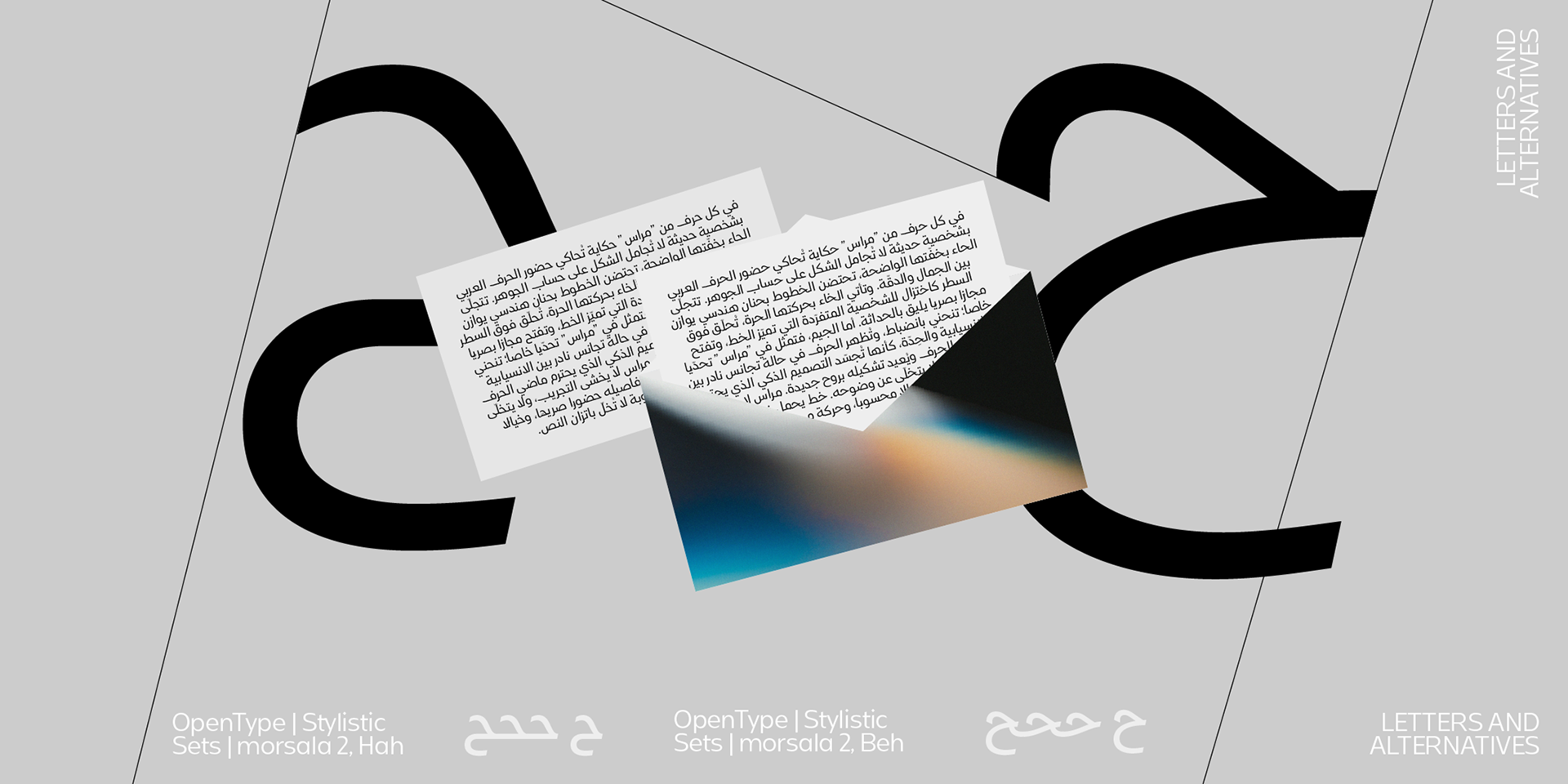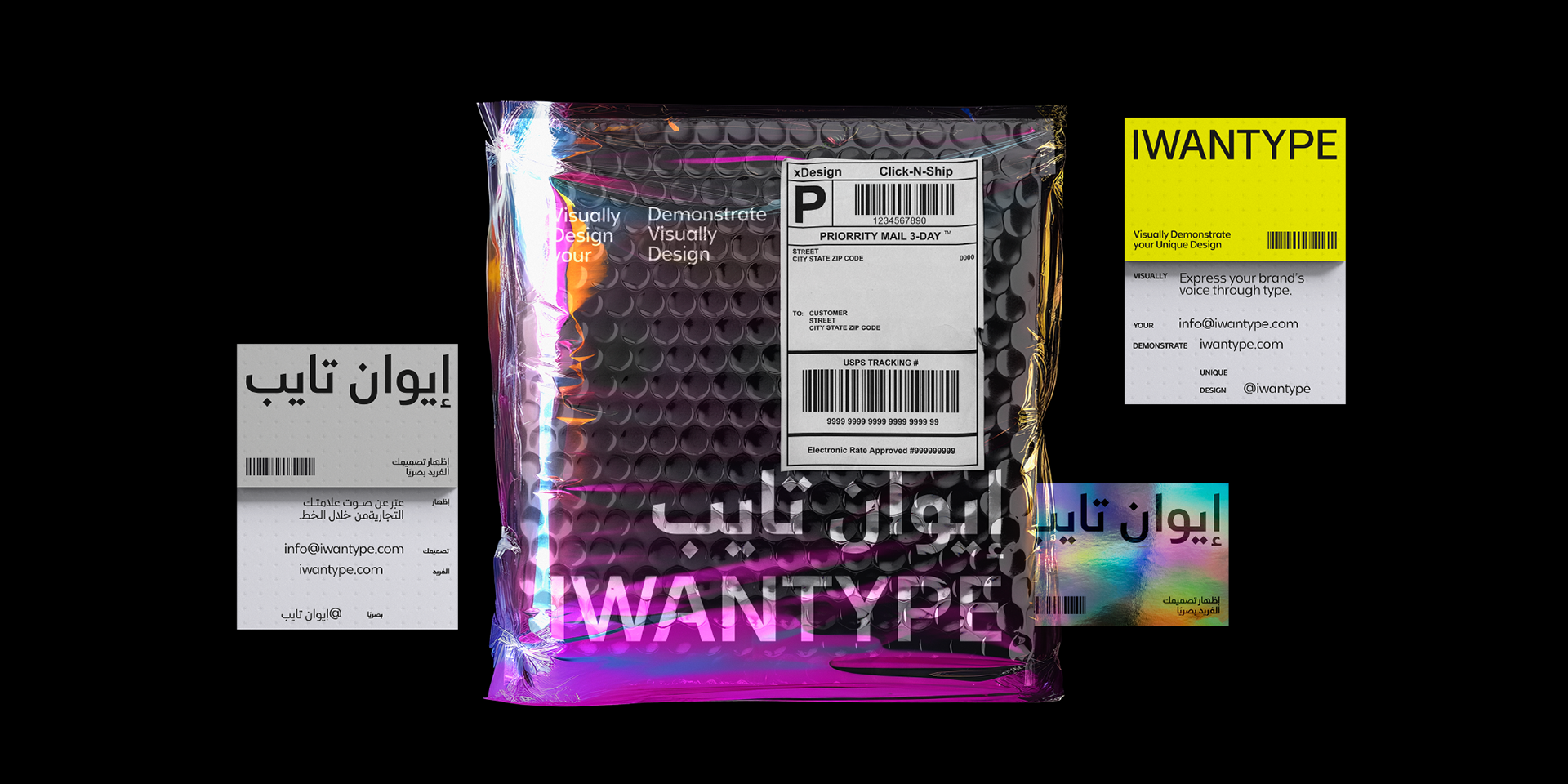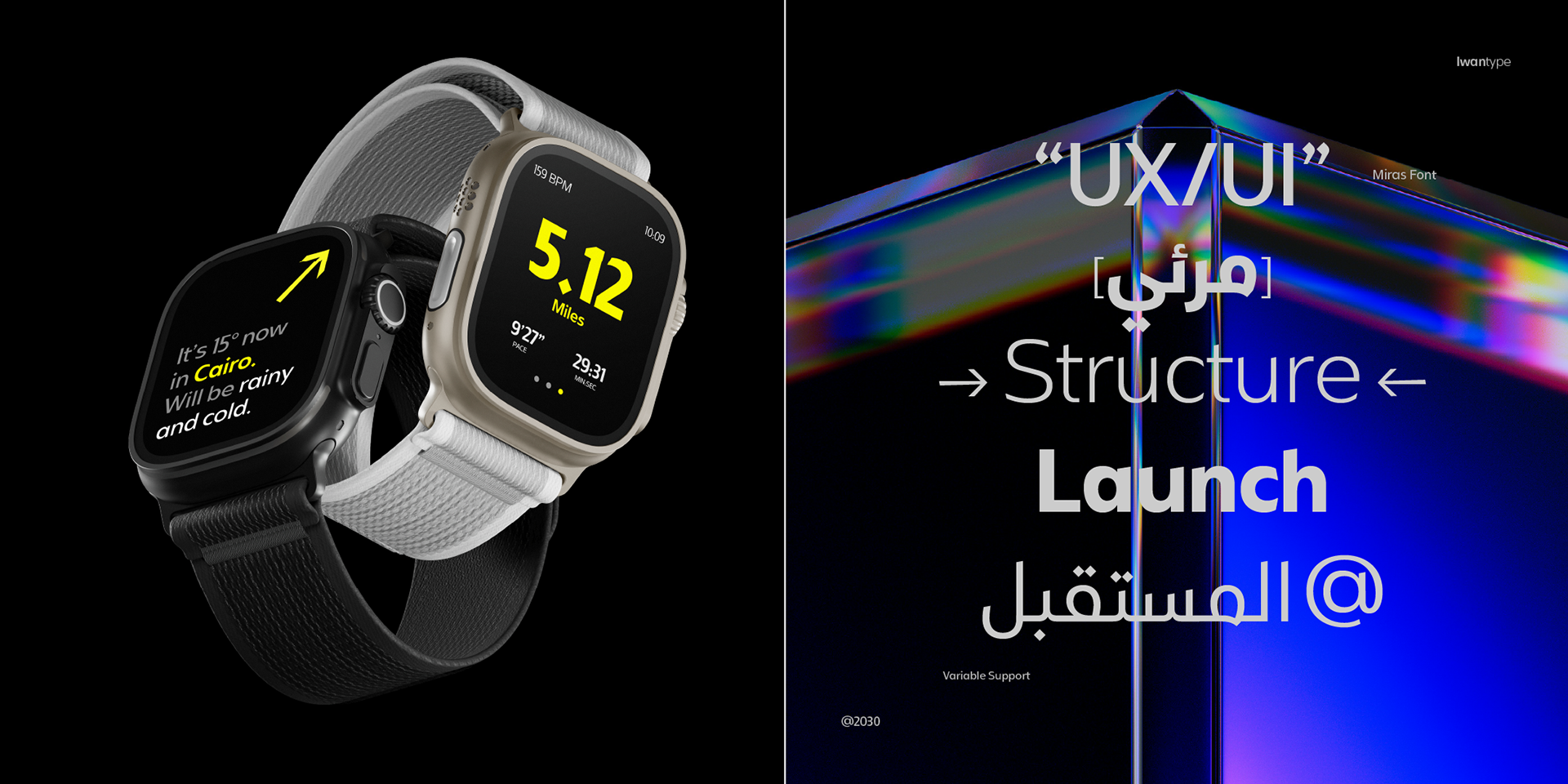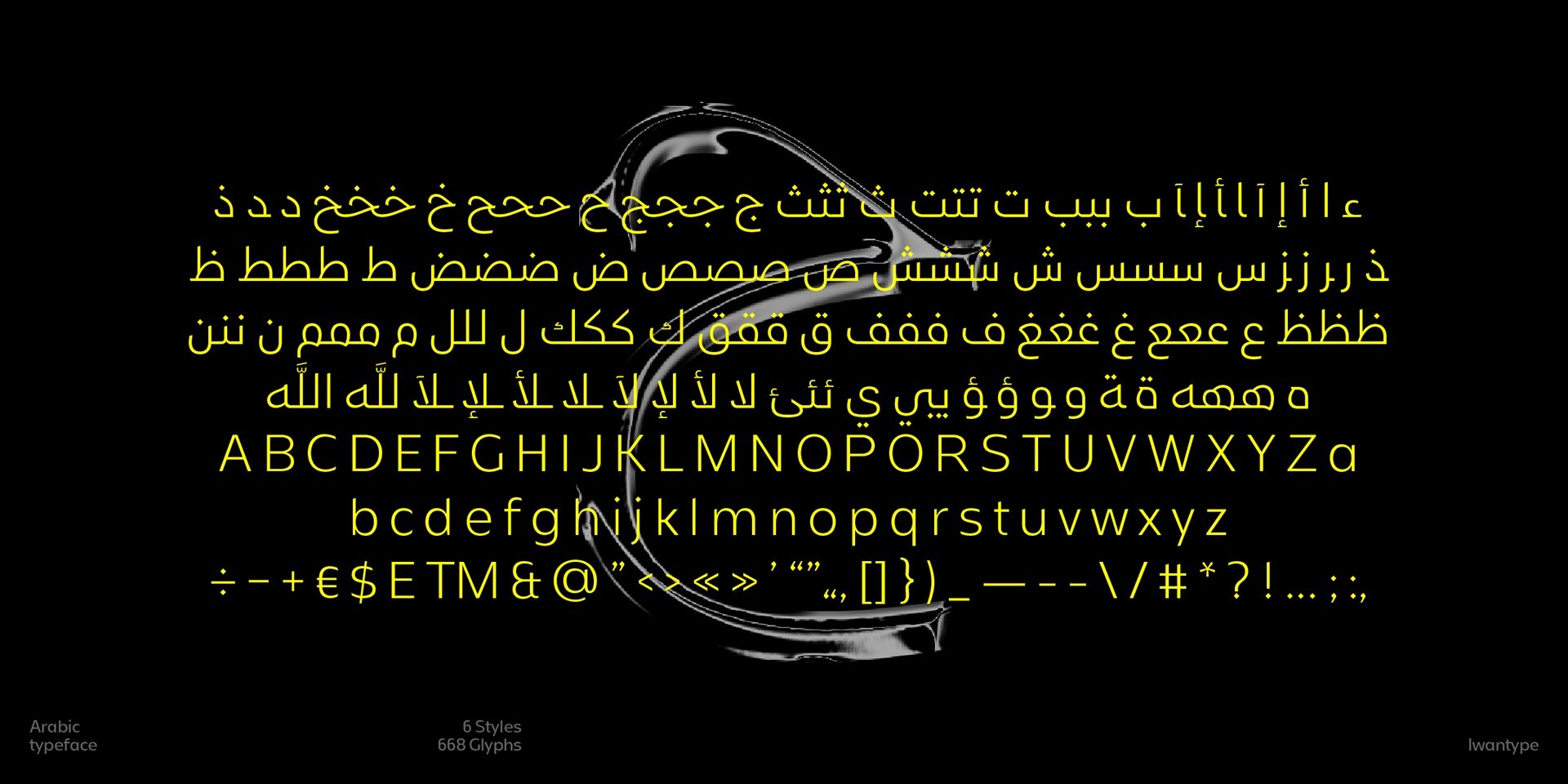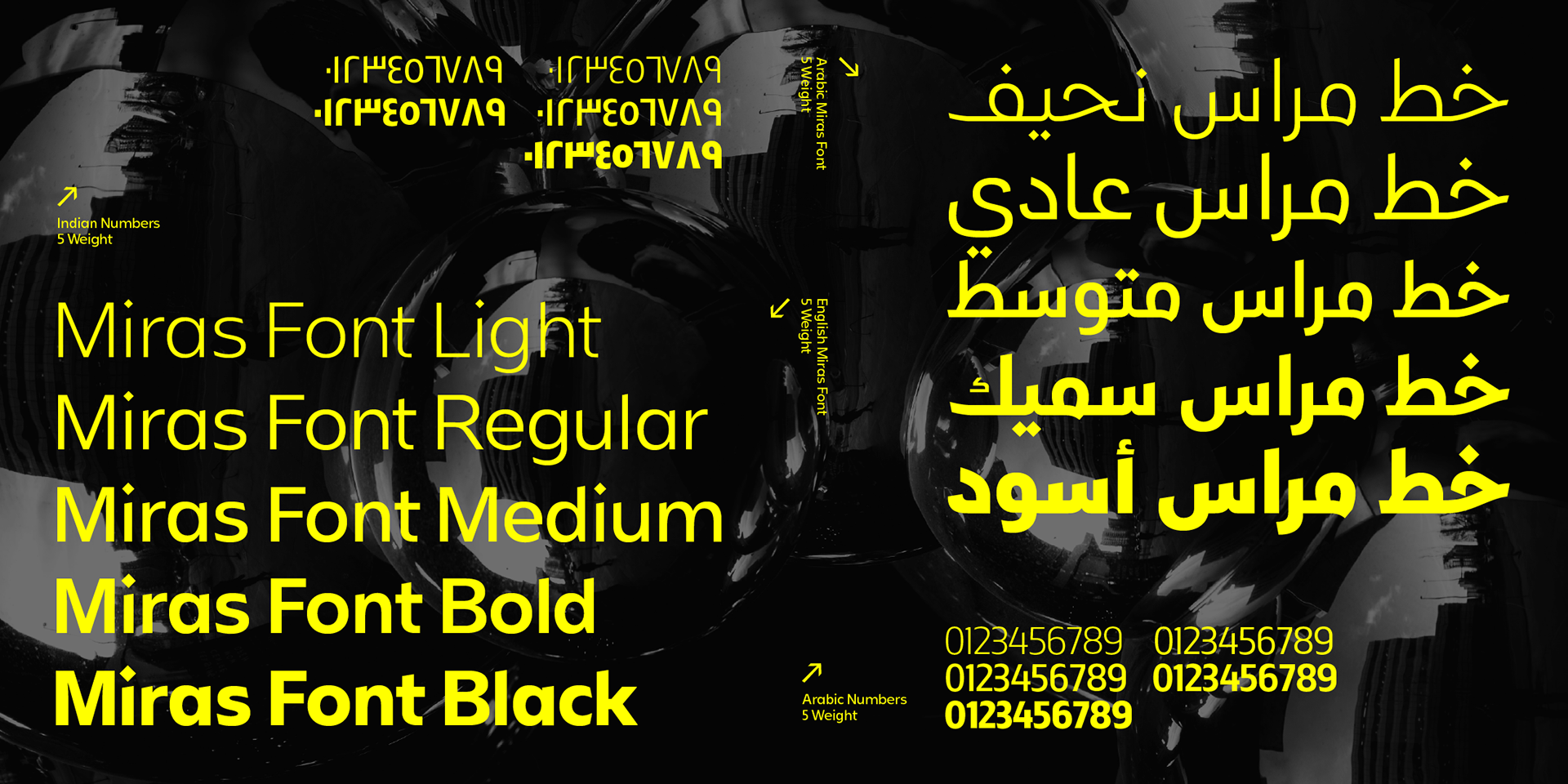
MIRAS Typeface — Arabic-Latin geometric typeface for the digital age.
MIRAS is designed to serve the needs of contemporary UI/UX, tech branding, and clean editorial design. With six carefully tuned weights and full Arabic–Latin support, it delivers clarity and structure across every screen.